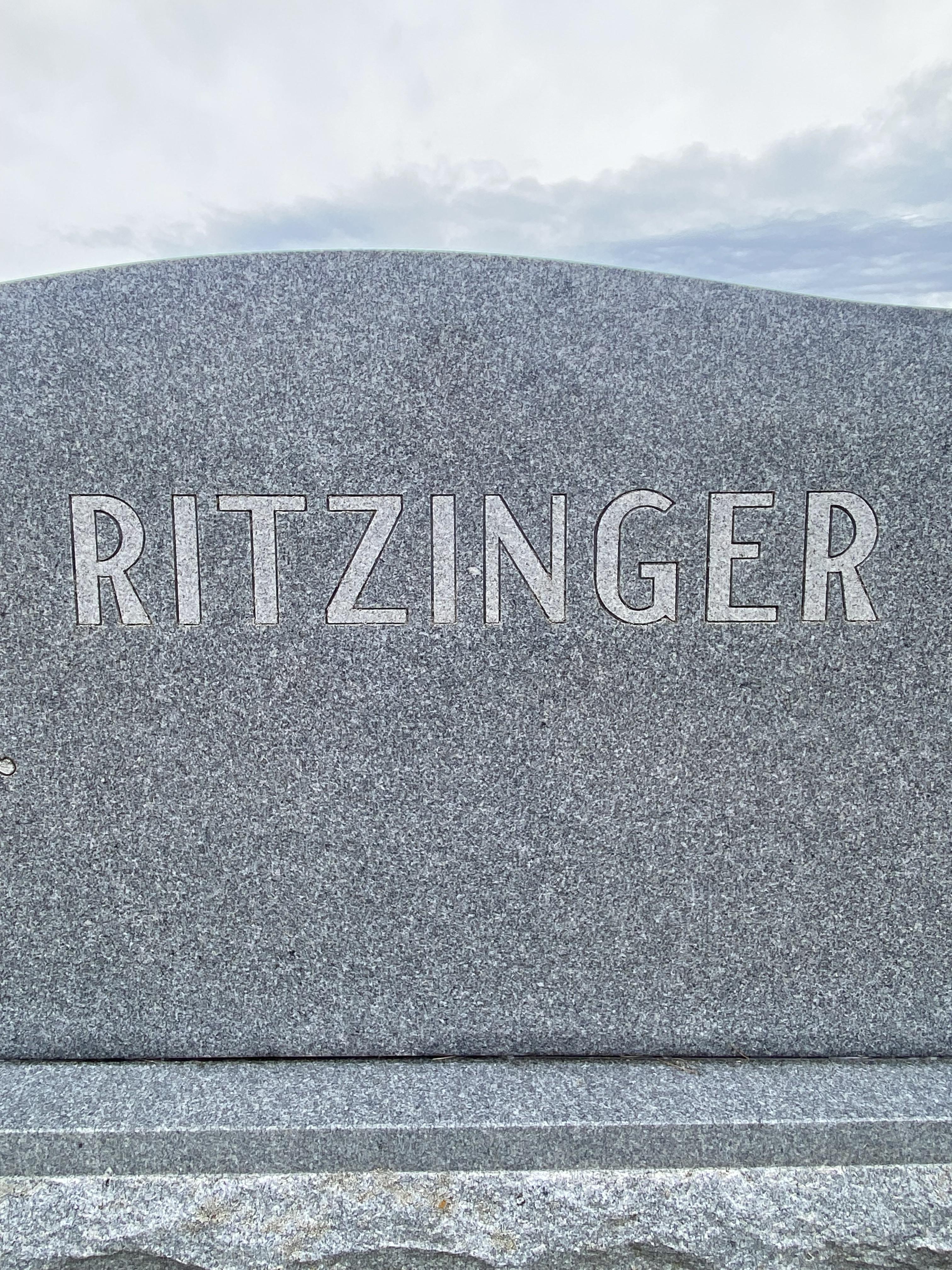
Hi Brian, I believe this is hand-drawn sans-serif lettering. Popularized by Edward Peterson and other designers of the time, that treatment of the leg of the ‘R’ became somewhat common among memorialists during the 1960s and early 70s.